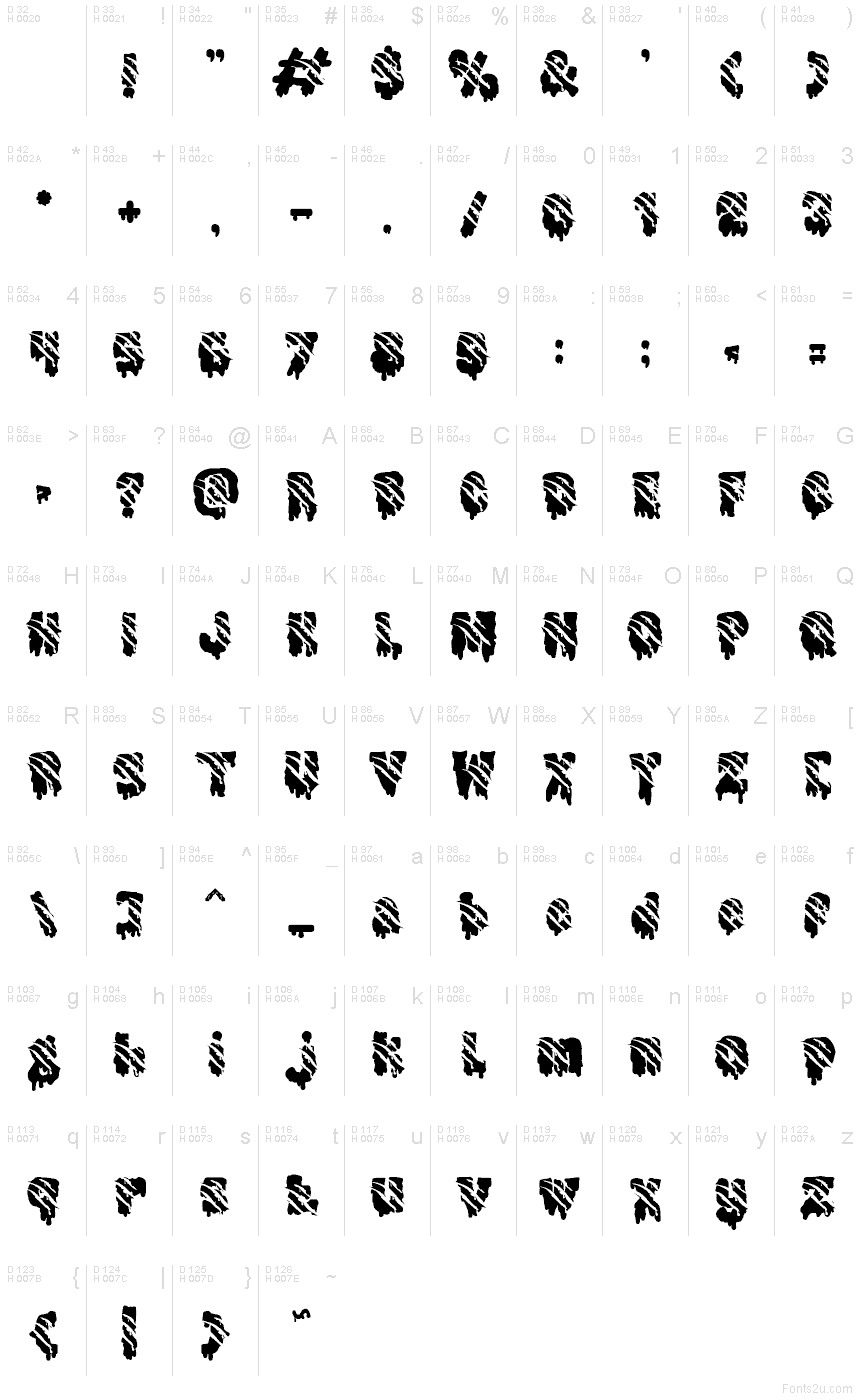
Gothic Haunt Monster
Gothic Haunt Monster font by PutraCetol Studio is a free Halloween display font from the Gothic Haunt family. Built for fright-night graphics, its heavy, torn silhouettes and claw-mark streaks throb with uneven rhythm—like letters scraped onto a wall. The forms are chunky, high-contrast, and a little feral, so your headline reads loud, gritty, and unmistakably spooky without getting muddy.
Using Gothic Haunt Monster, you can nail haunted house posters, party invites, horror movie title cards, game splash screens, escape room signage, seasonal merch, and social banners. This free font shines at big sizes; let it roar in the headline and pair with a clean geometric sans for details to keep things readable and tense.